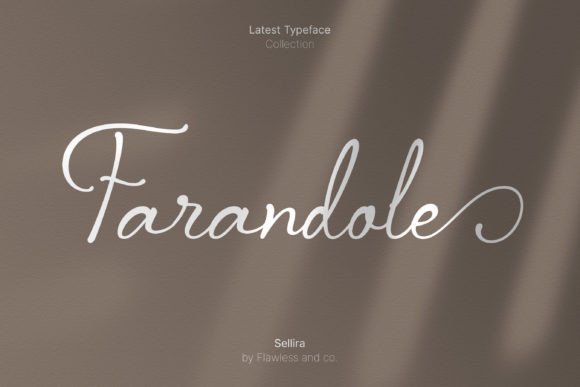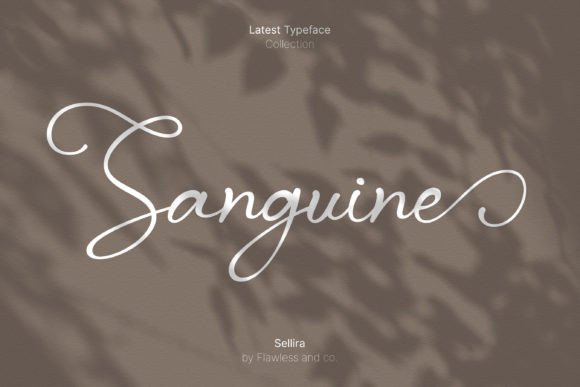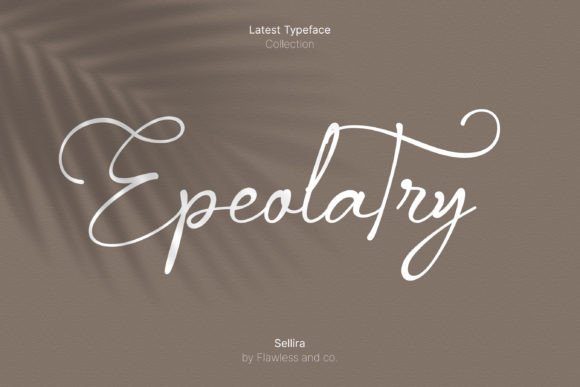
Introduction to Sellira Font
Have you ever found yourself lost in a sea of ideas, searching for the perfect design element to elevate your creative project? That moment when everything clicks, and the right font brings your vision to life? For designers, it’s a feeling like no other – the rush of excitement that comes with creating something truly special.
That’s where Sellira Font comes in – a stunning calligraphy font that’s about to become your new go-to design resource. With its elegant curves and intricate details, Sellira Font is the perfect choice for projects that demand a touch of refined beauty. Whether you’re working on a logo, brochure, or social media graphics, Sellira Font is sure to add a touch of sophistication and class. And the best part? It’s available for free download, making it an accessible and high-quality design element for any creative project.
Key Features of Sellira Font
- High-quality design resource perfect for creative projects, offering a unique and stylish touch.
- Transparent background, making it ideal for use on any color or design, without the risk of background bleed.
- Designed to be highly legible, making it perfect for use in a variety of contexts, from body text to headings.
Honest Review: Sellira Font
I recently had the opportunity to work with the Sellira Font on a creative project and I must say, it’s been a game-changer for my design workflow. As a designer, I’m always on the lookout for high-quality design resources that can elevate my work and make it stand out.
The Sellira Font is a beautiful, elegant script font that’s perfect for adding a touch of sophistication to any design. With its transparent background, it’s incredibly versatile and can be used on a variety of backgrounds, making it a great addition to any design resource collection.
Here are some things that work well with the Sellira Font:
- ✨ Beautiful, elegant script design
- ✨ Transparent background for easy customization
- ✨ High quality, professional look
However, I did notice a few limitations:
- ⚠️ Limited font sizes available
- ⚠️ Not as versatile for bold, sans-serif designs
Overall, I’m thoroughly impressed with the Sellira Font and would highly recommend it to anyone looking for a high-quality, elegant script font for their next creative project.
Tips for Getting the Most Out of Sellira Font
Use Sellira Font in combination with other design elements, such as images and shapes, to create visually appealing designs. Experiment with different font sizes and styles to add depth and interest to your projects.
The Sellira Font is ideal for a variety of creative projects, including logos, business cards, brochures, and social media graphics. Its high-quality design and transparent background make it a popular choice among designers and creatives.
Alternatives to Sellira Font
The Great Vibes Font is a beautiful, elegant script font perfect for creating a high-quality design resource. It’s ideal for use in creative projects that require a touch of sophistication and style. This font is a great choice for designers who want a similar feel to Sellira Font but with a more refined look.
When to use: Great Vibes Font is suitable for wedding invitations, luxury branding, and high-end creative projects. It’s also a great choice for designers who want a font with a transparent background for easy overlaying.
Comparison: Great Vibes Font has a more elegant and refined look compared to Sellira Font, making it a great alternative for designers who want a more sophisticated feel.